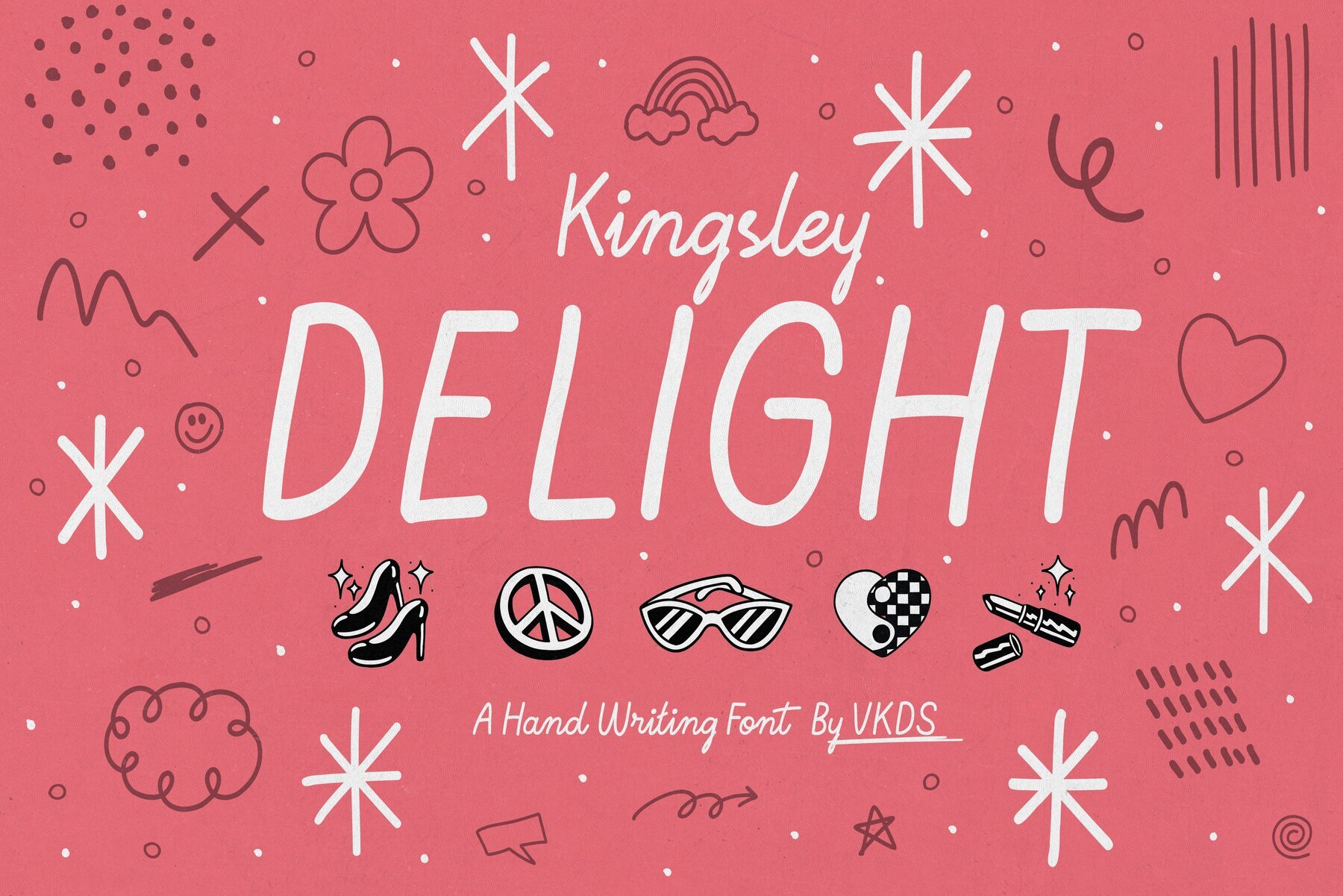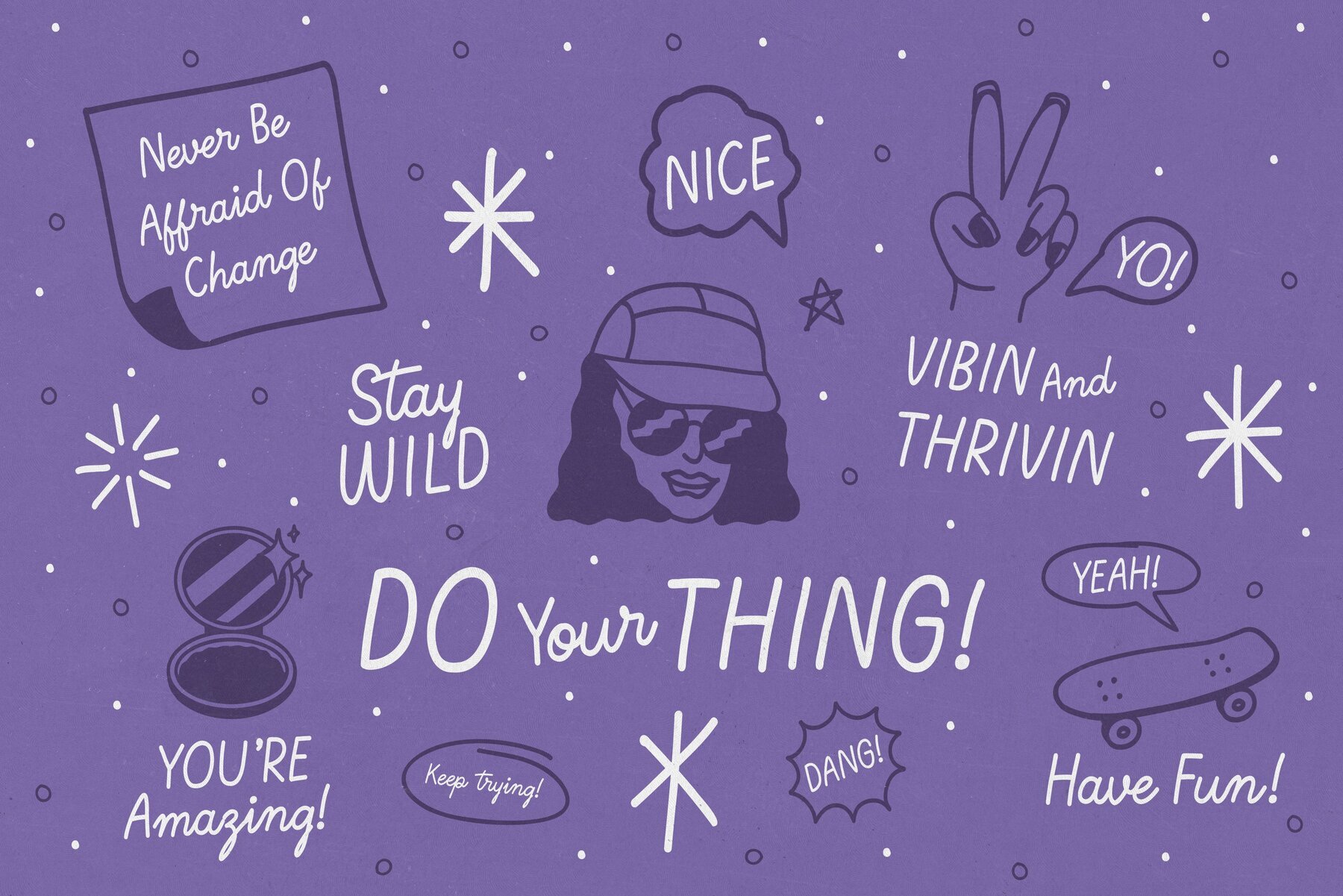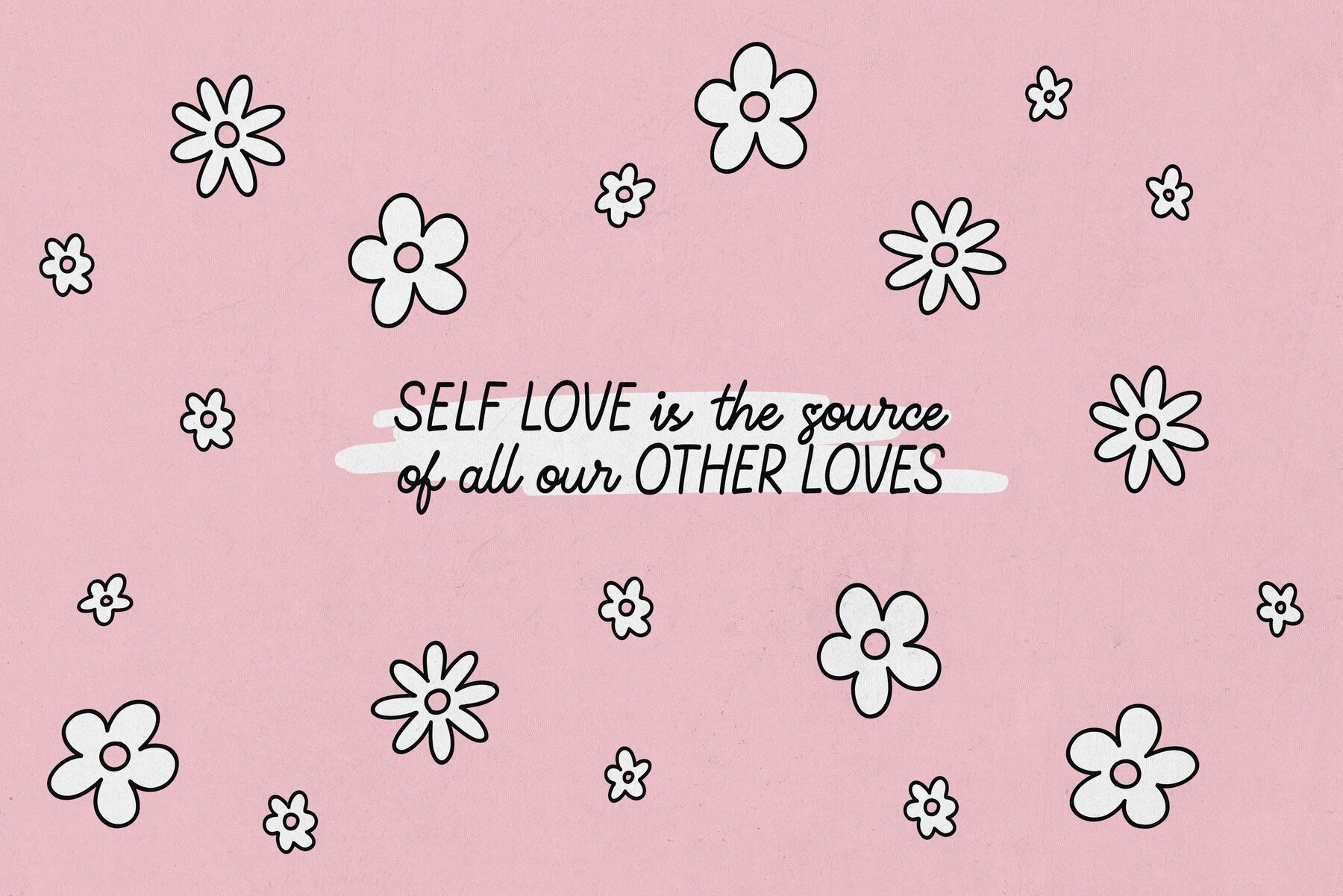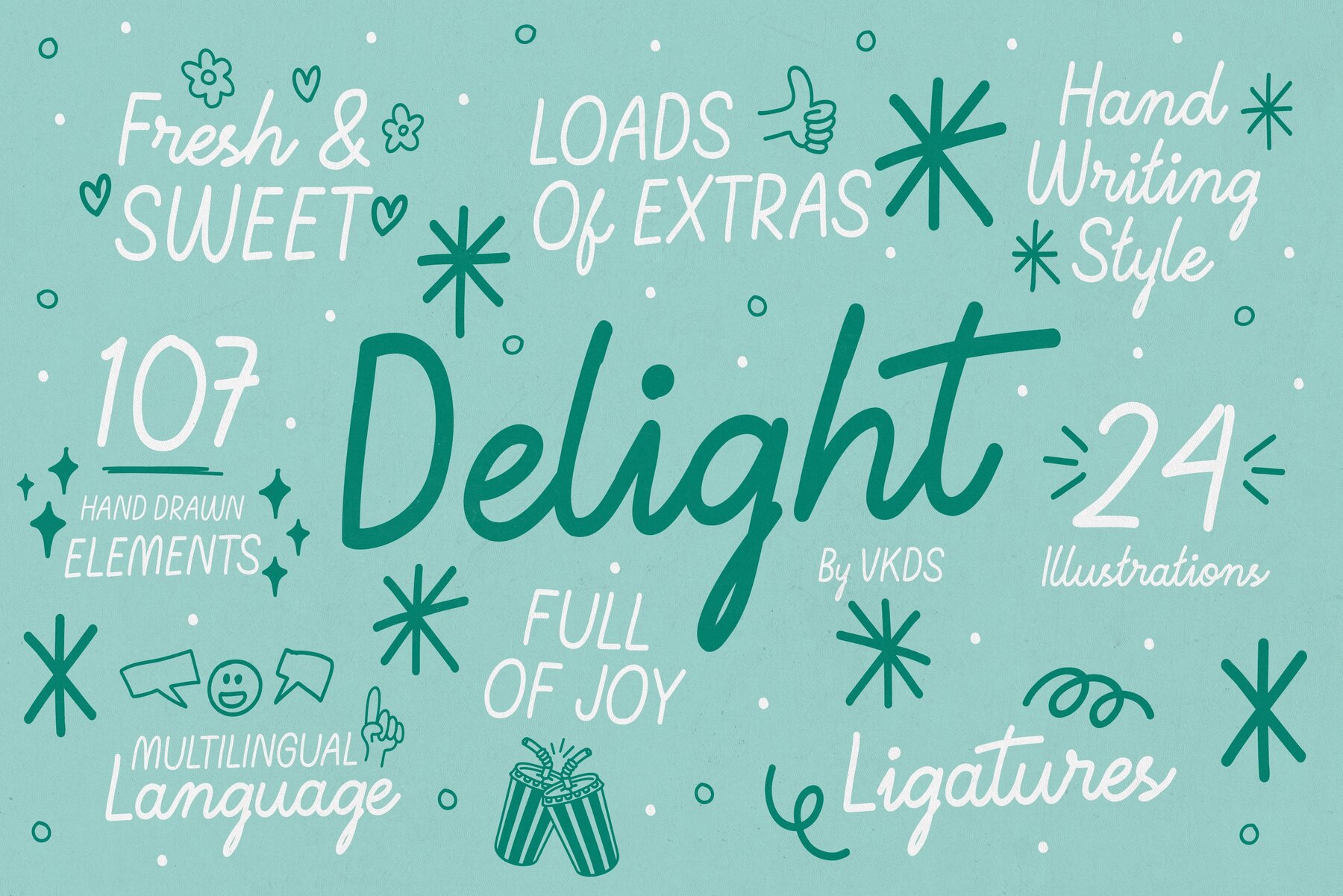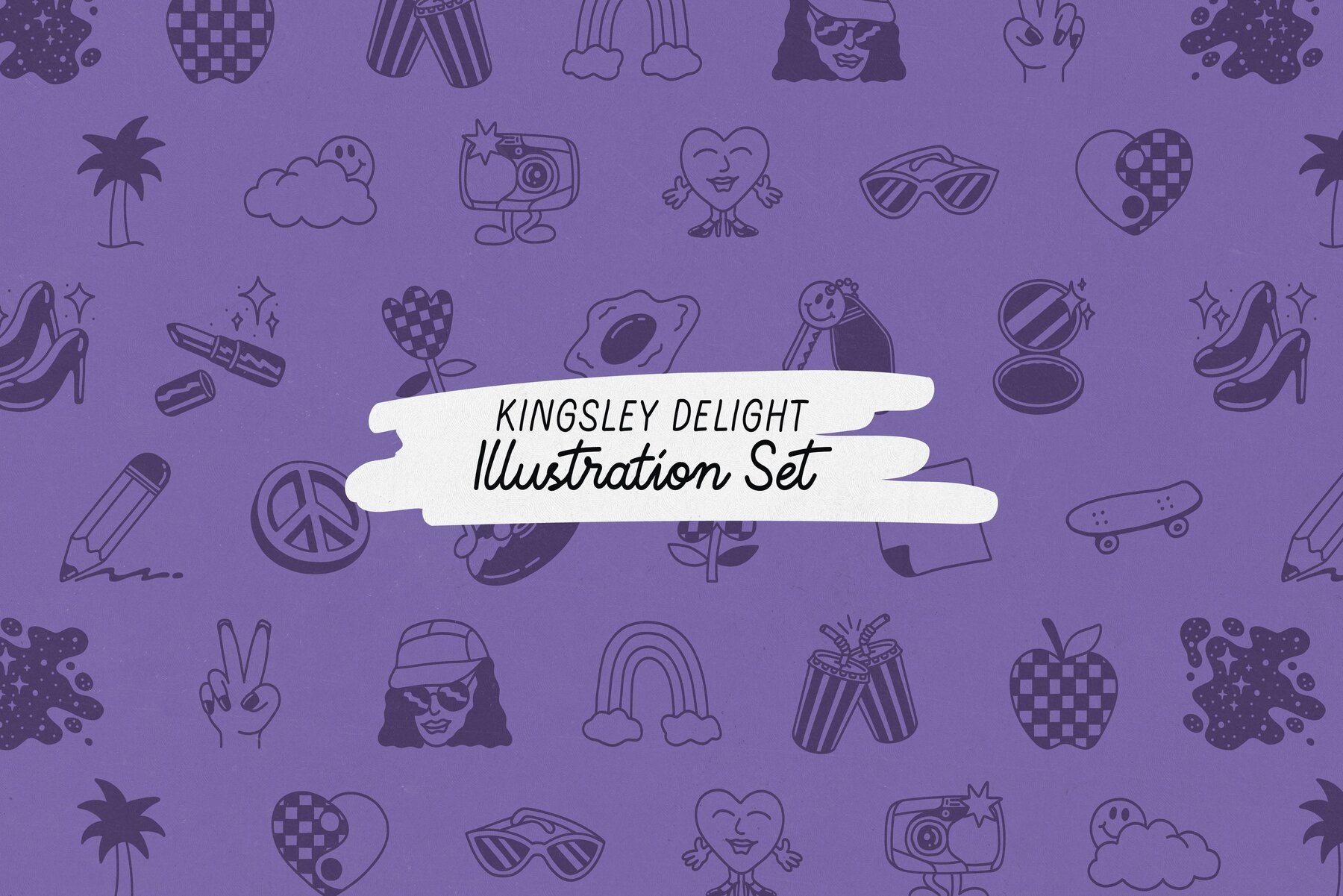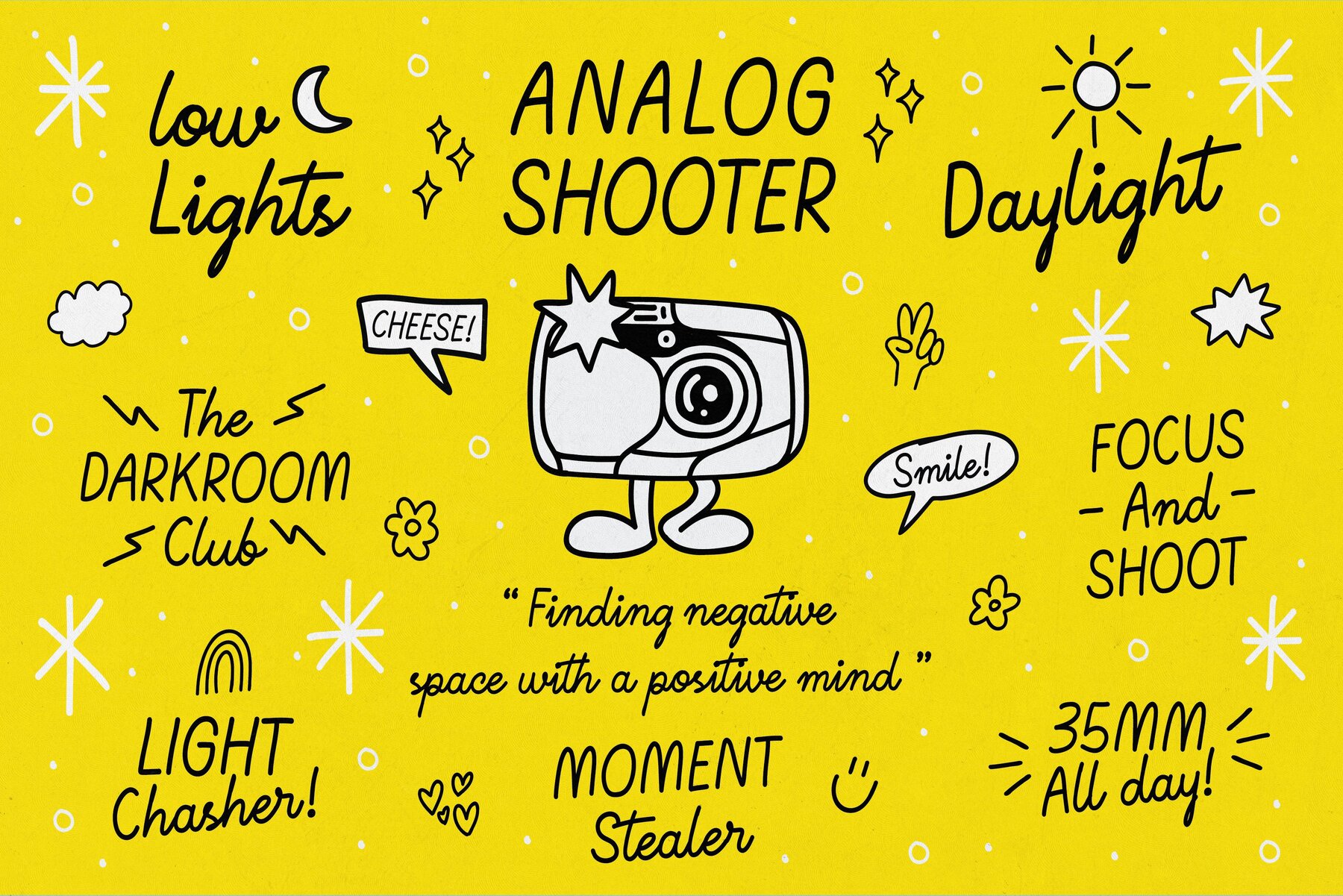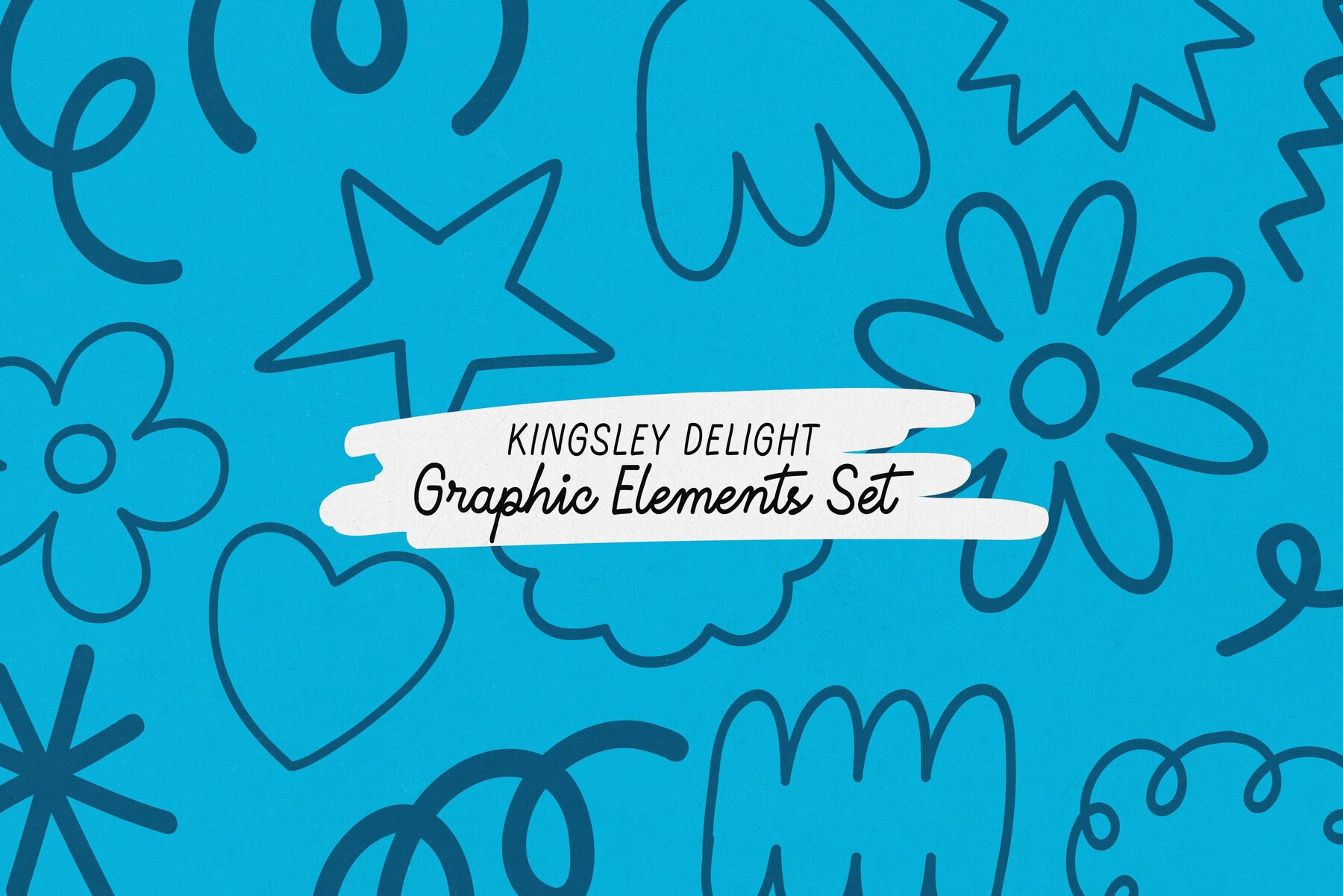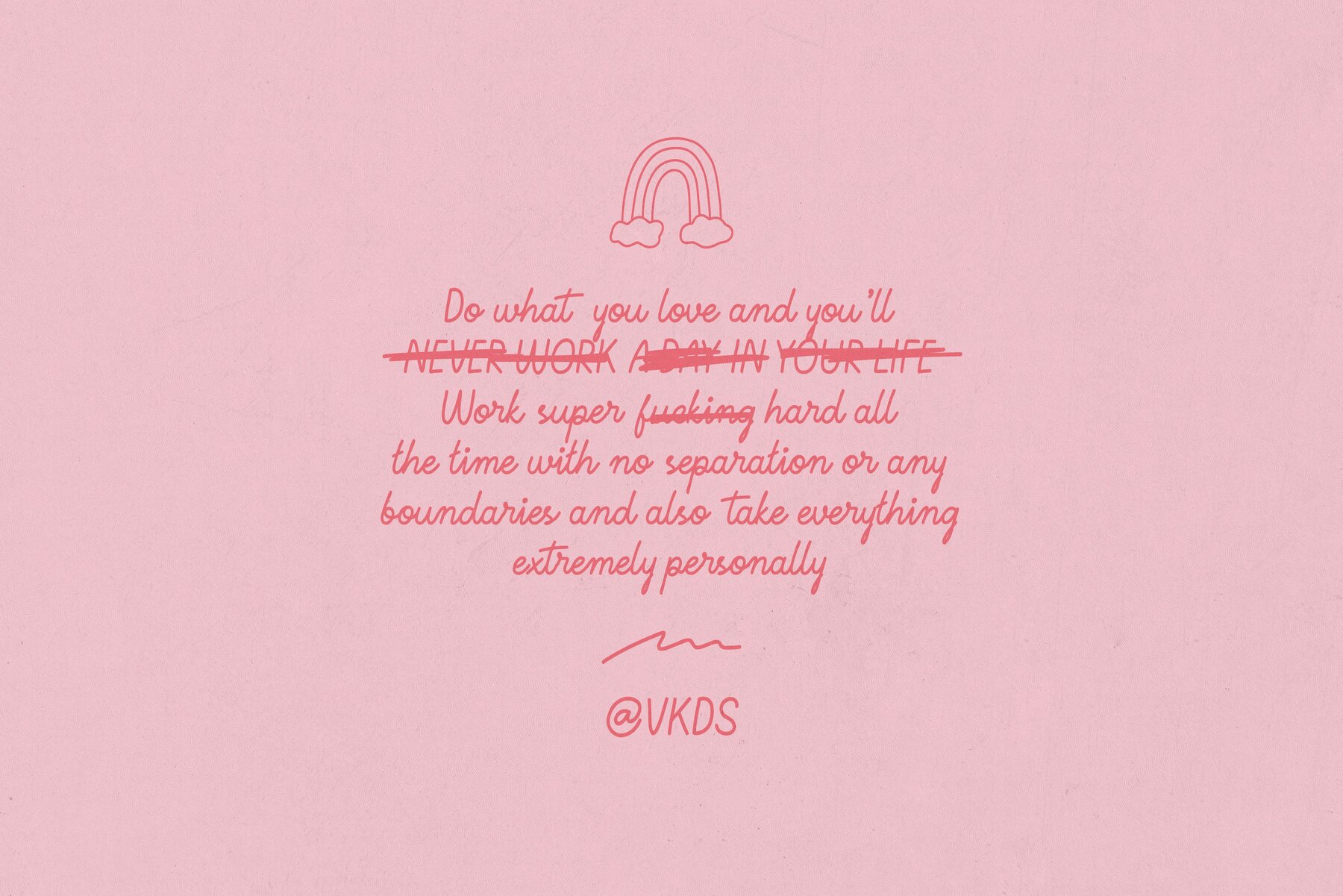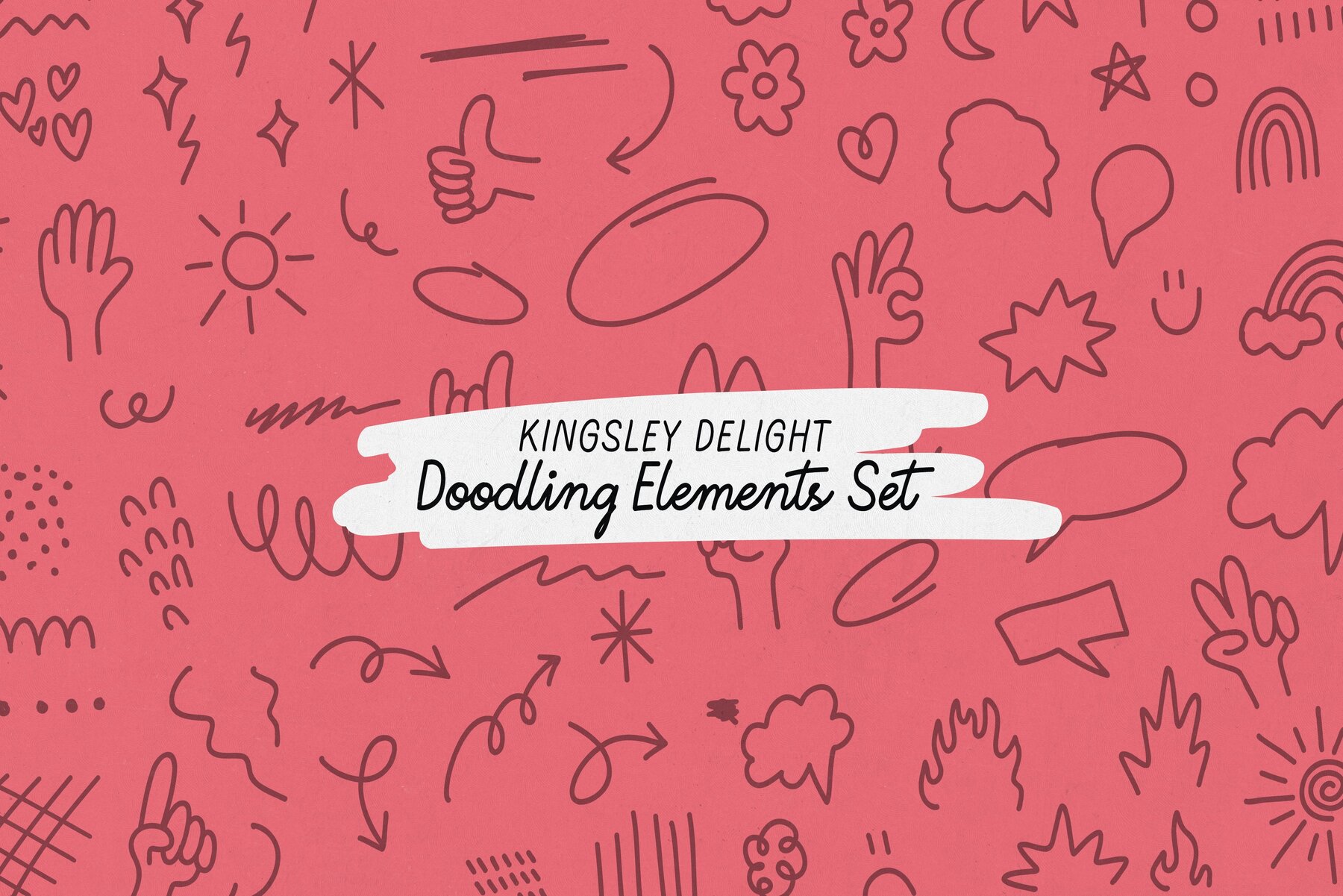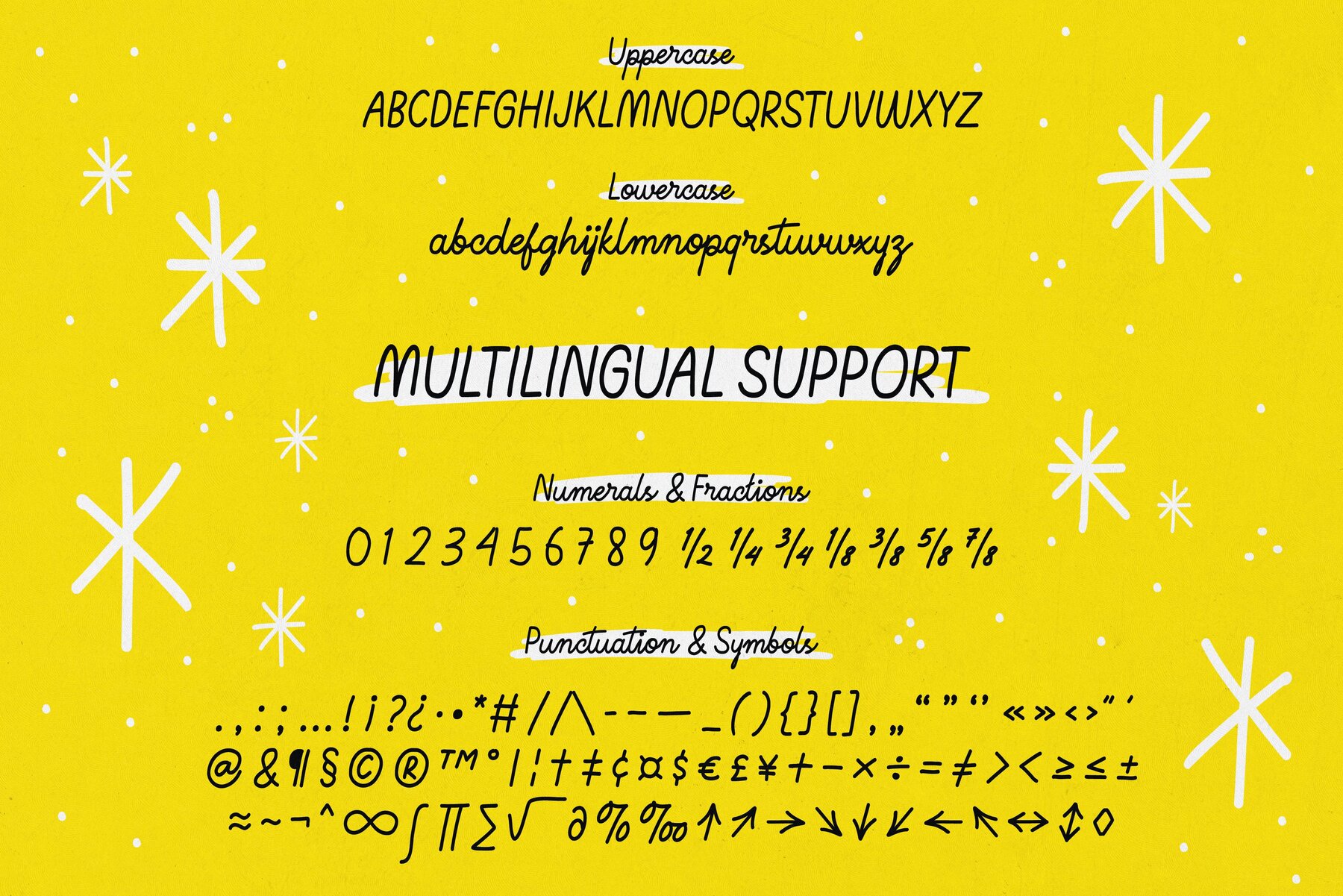
Kingsley Delight Font
The Kingsley Delight font is a beautiful blend of elegance and craftsmanship, from the talented Victoria Kingsley Design Studio. This sophisticated script features over 380 glyphs, promising a personalized touch to invitations, logos, and branding materials. Its unique style suits a myriad of creative projects, adding a refined flair to every design. With Kingsley Delight, explore various character combinations to craft a memorable aesthetic. Elevate your creative expression with the thoughtfully designed bonus vector files, which include diverse elements that give your work a unique finish.Kingsley Delight: A Sophisticated Handwriting Font